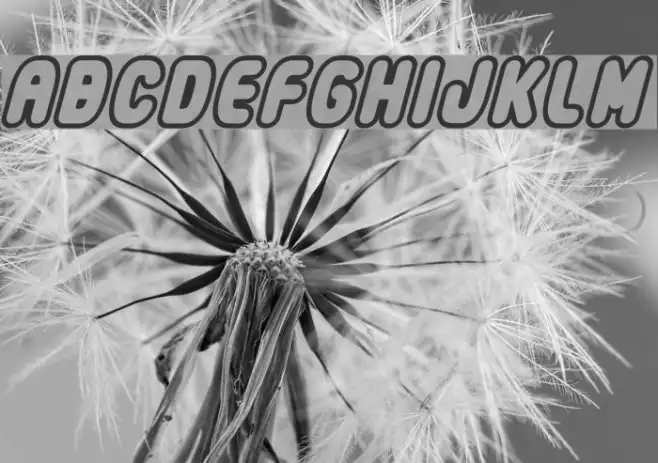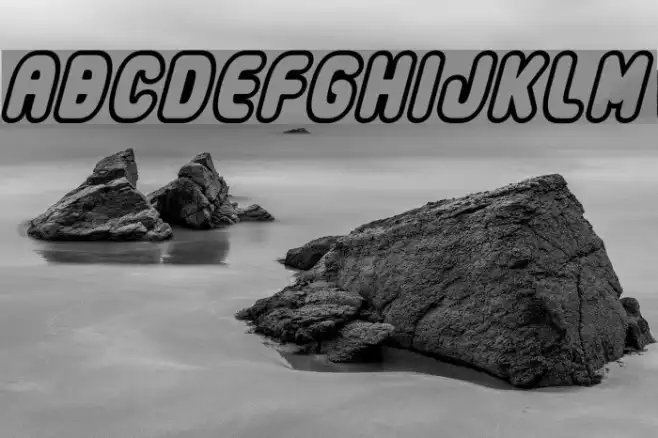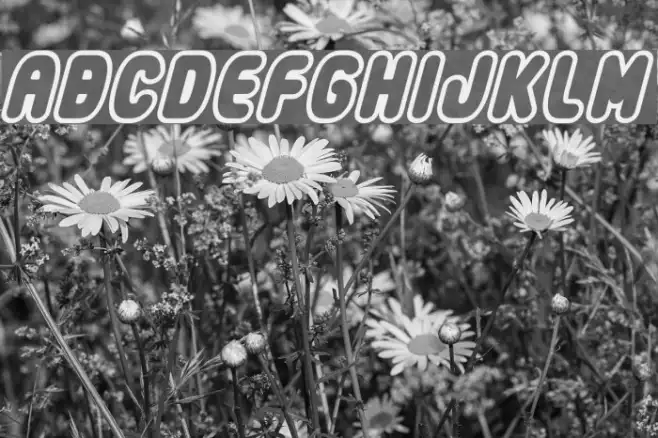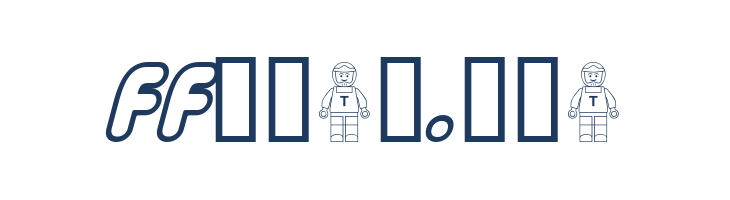
Legothick Font
This playful and bold font features thick, rounded letters with a distinct outline, reminiscent of classic toy designs. The uppercase letters are uniform in height, while the lowercase letters maintain a consistent style, creating a cohesive look. The numerals are equally bold and rounded, ensuring readability and a fun aesthetic. Special characters are included, maintaining the same playful style. The font's design is ideal for capturing attention and conveying a sense of fun and creativity.
A bold, playful font with rounded, outlined characters.
- Proposed Projects: Ideal for children's book covers, toy packaging, playful branding, and educational materials.
- Overall Style: Playful, Fun